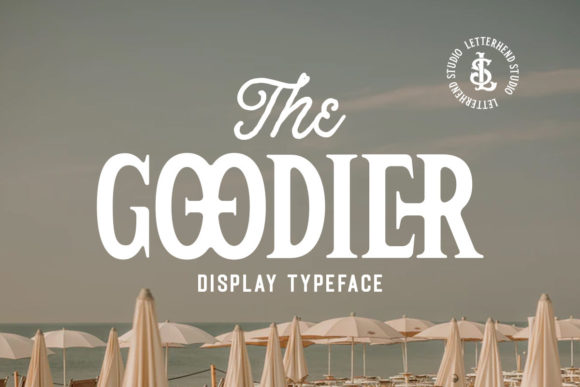
Introducing Goodier Font: The Assertive and Classic Serif Font for Elevating Your Crafting Ideas
In the world of typography, a font can make all the difference in elevating a design from ordinary to extraordinary. If you’re a crafty person, a designer, or simply someone who loves to dabble in creative projects, you’re likely always on the lookout for the perfect font to bring your ideas to life. That’s where Goodier Font comes in – an assertive and classic serif font that’s sure to take your crafting ideas to the next level.
What is Goodier Font?
Goodier Font is a serif font that exudes confidence and sophistication. Its classic design makes it an excellent choice for a wide range of projects, from cards and branding materials to labels and more. With its assertive personality, Goodier Font is perfect for those who want to make a statement with their designs.
The Many Uses of Goodier Font
One of the best things about Goodier Font is its versatility. Its classic design and assertive personality make it suitable for a wide range of projects, including:
- Cards: Whether you’re creating greeting cards, invitations, or thank-you cards, Goodier Font is an excellent choice. Its serif design adds a touch of elegance and sophistication to any card.
- Branding: If you’re looking to create a strong brand identity, Goodier Font can help. Its assertive personality makes it perfect for logos, business cards, and other branding materials.
- Labels: Goodier Font is also great for labels – whether you’re creating labels for products, files, or folders. Its classic design makes it easy to read and understand.
- And more: The possibilities are endless with Goodier Font. You can use it for posters, flyers, brochures, and any other project that requires a classic and assertive font.
The Benefits of Using Goodier Font
So, why should you choose Goodier Font for your projects? Here are just a few benefits of using this amazing font:
- Elegance: Goodier Font adds a touch of elegance and sophistication to any project. Its serif design makes it perfect for formal and informal projects alike.
- Versatility: As mentioned earlier, Goodier Font is incredibly versatile. You can use it for a wide range of projects, from cards and branding materials to labels and more.
- Easy to read: Goodier Font is easy to read, even at small sizes. This makes it perfect for projects where you need to convey a lot of information in a small space.
- Unique: Goodier Font has a unique personality that sets it apart from other fonts. Its assertive design makes it perfect for those who want to make a statement with their designs.